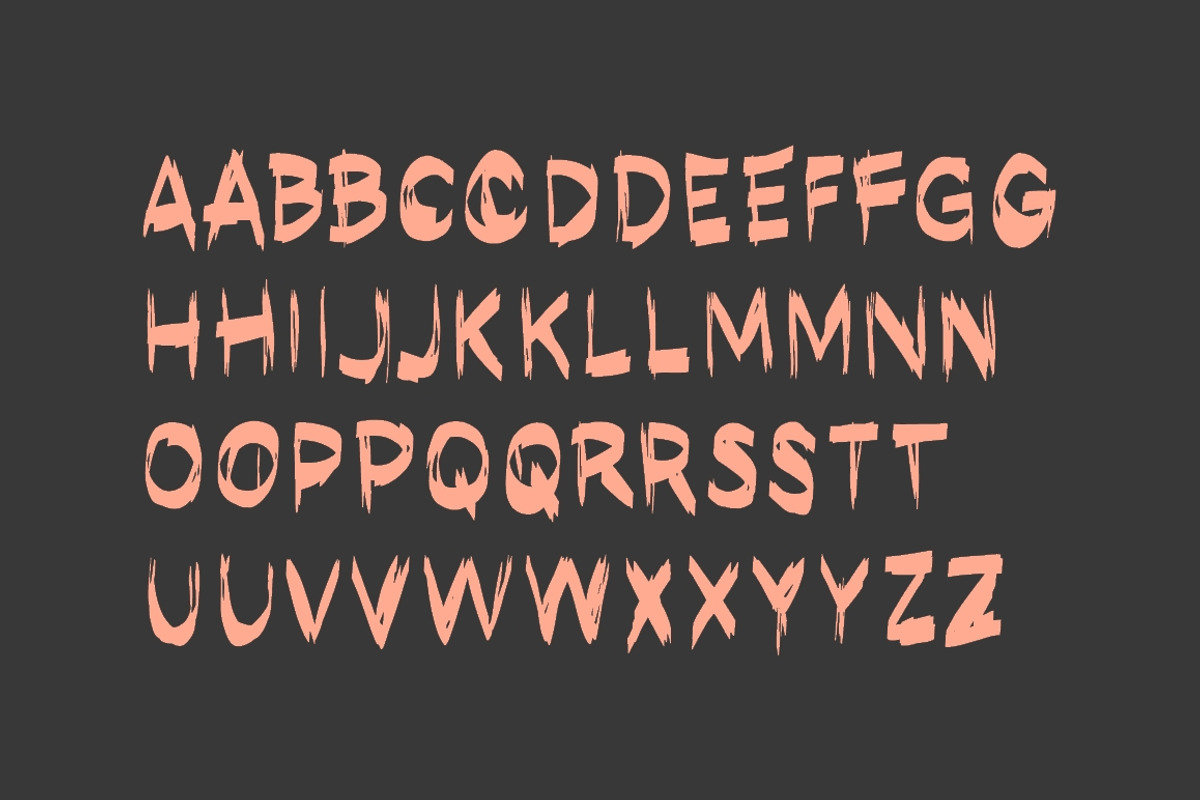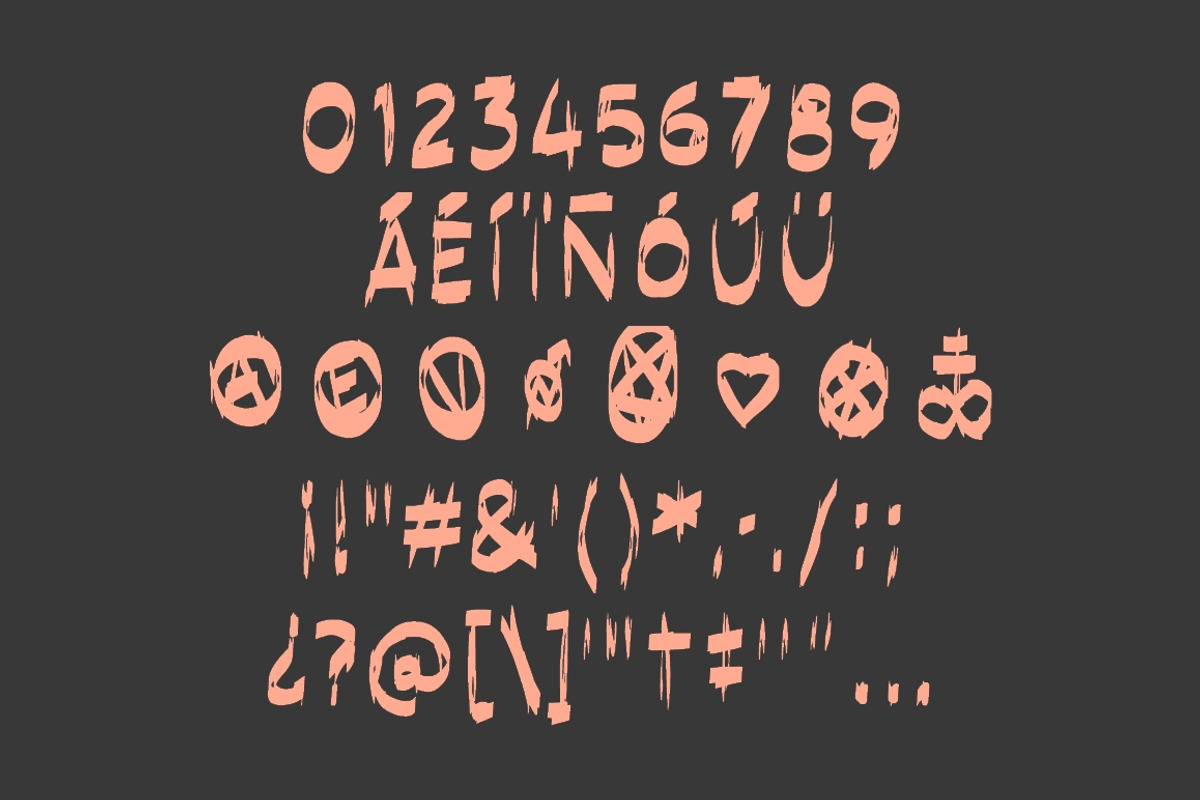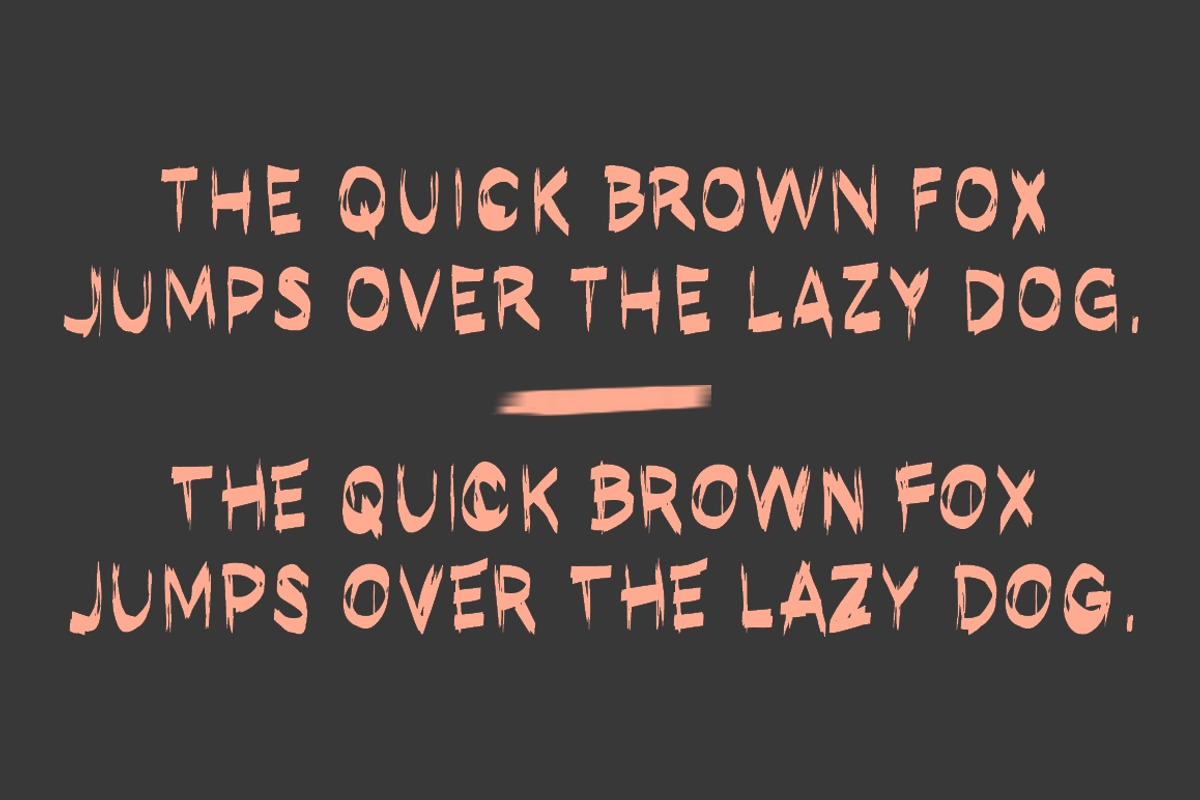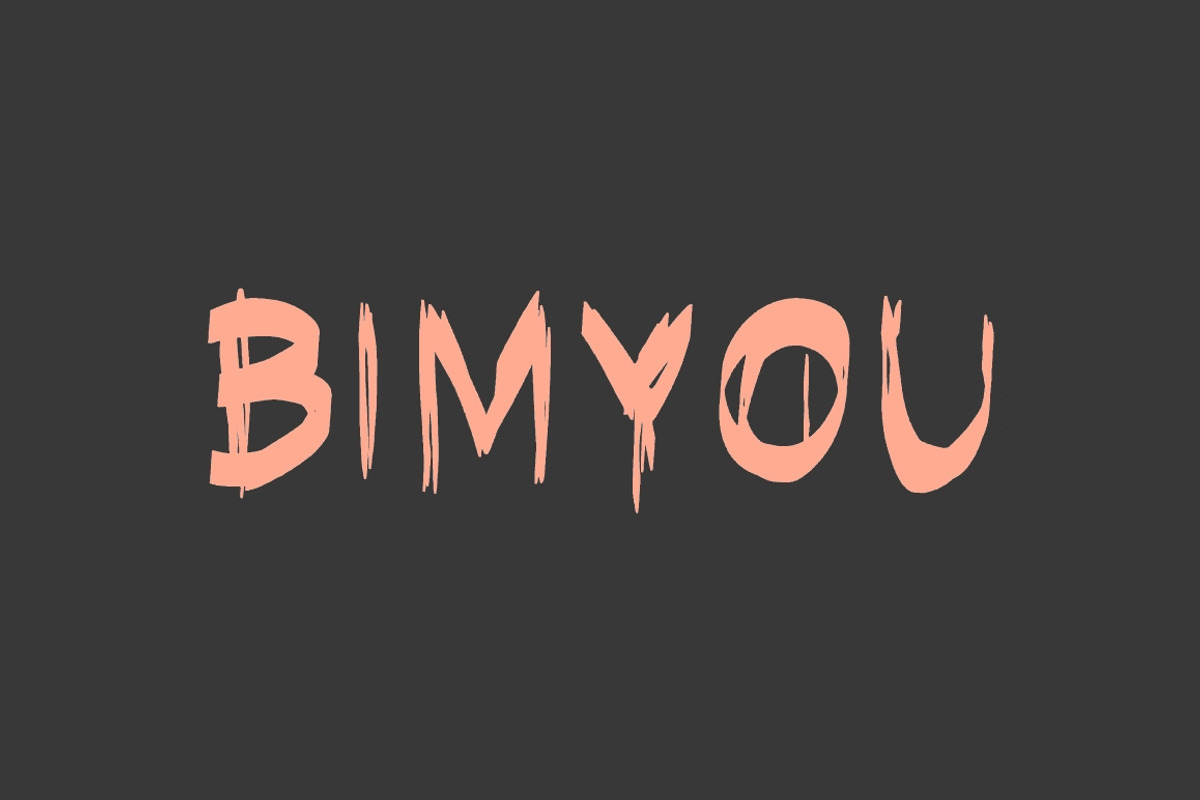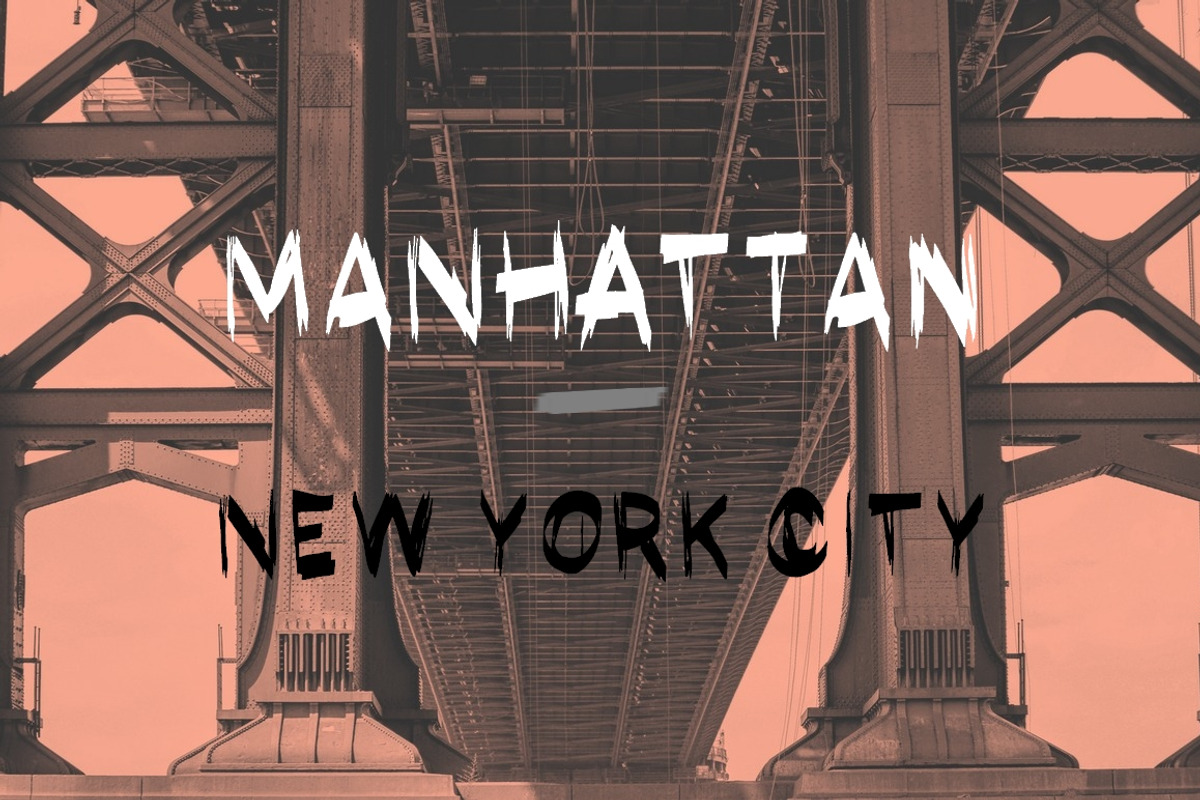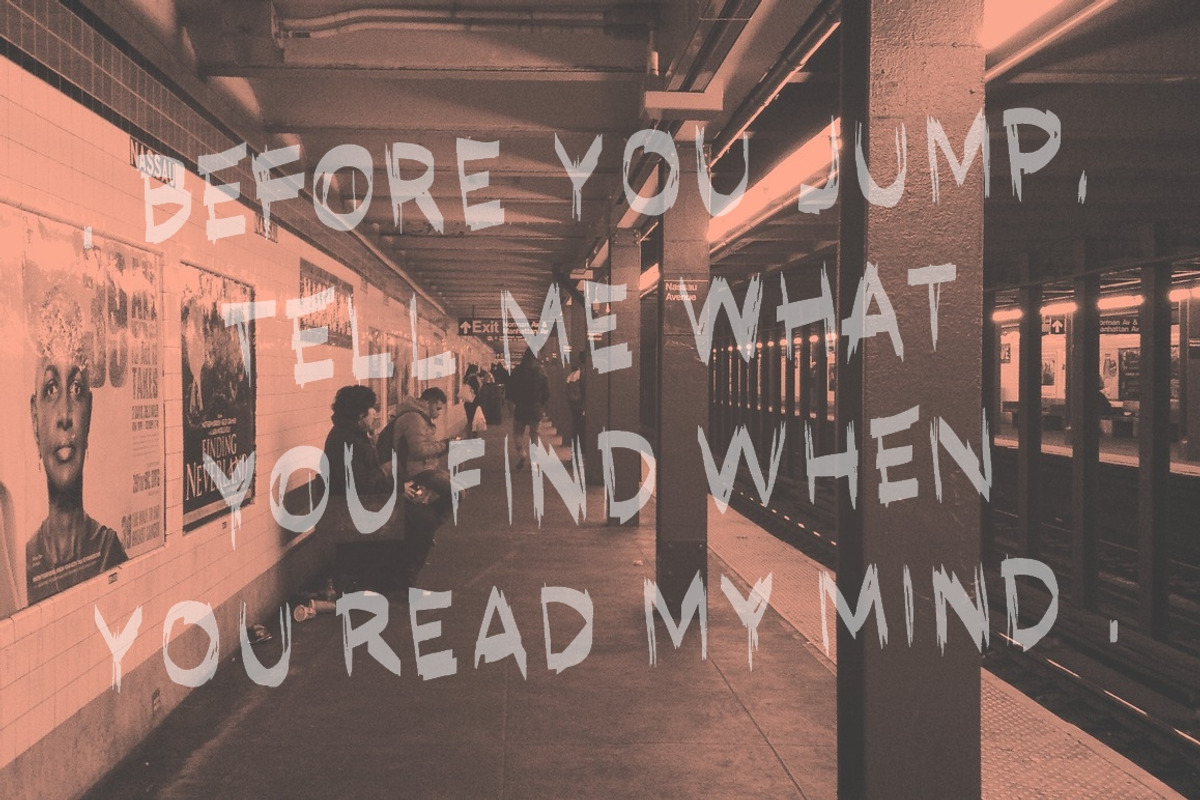
Bimyou Font
Introducing Bimyou, a simple but cook and easy to read, graffiti font. Script, handwritten, handmade. Inspired by radical graffiti. As always was made with love.
Bimyou Font by YARARÀ STUDIO fits naturally into Branding, posters, packaging, typography.